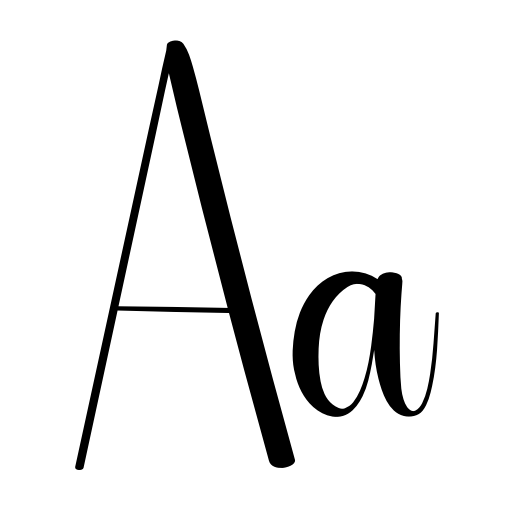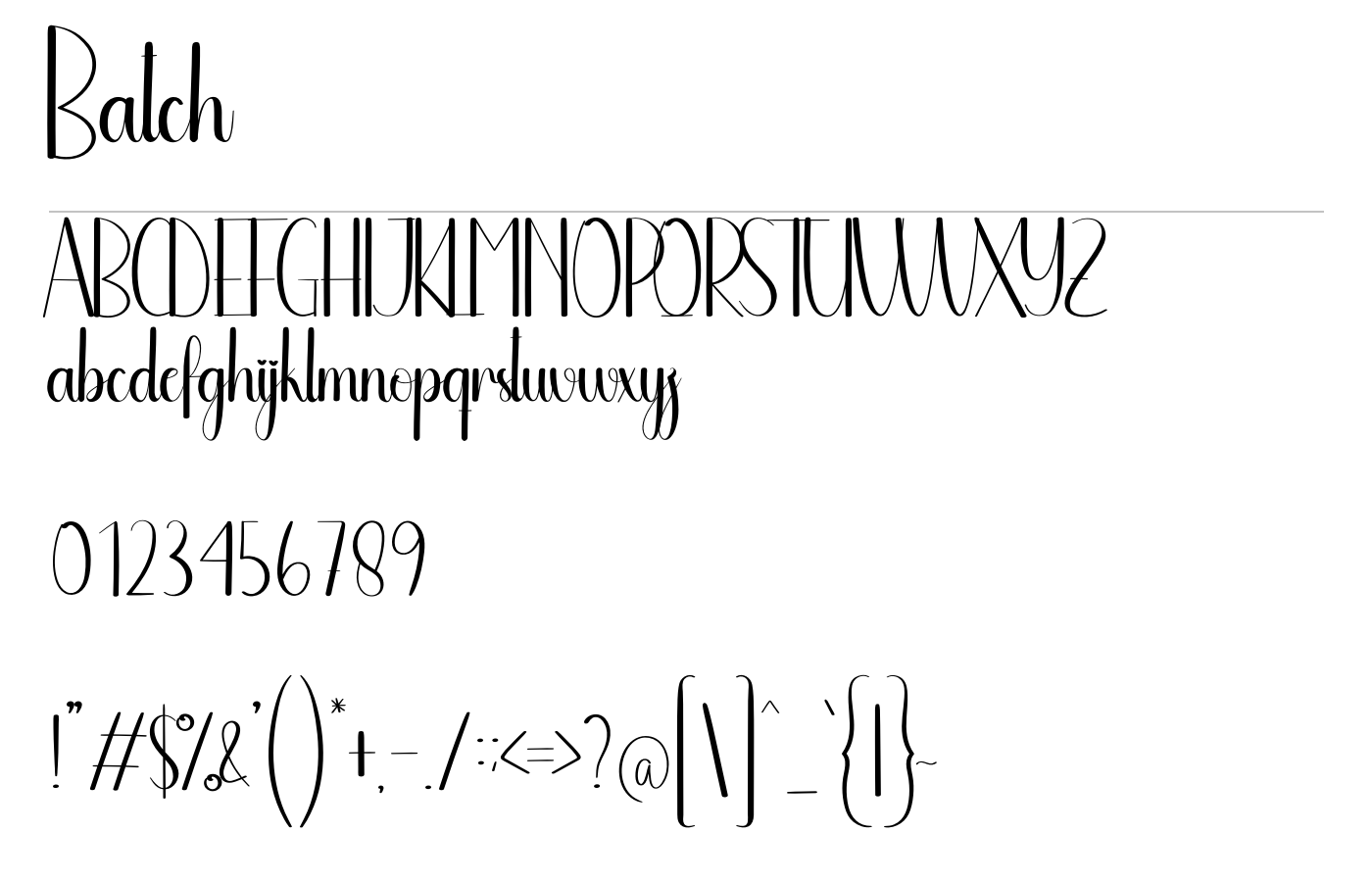
Batch Font is a tall, elegant script-inspired typeface with a playful and slender character. Its thin strokes and high contrast combine with delicate curves to create a sophisticated yet approachable look, perfect for stylish branding and creative headlines. This font works well in fashion, invitations, and editorial design where a chic and refined personality is desired.
Batch Font